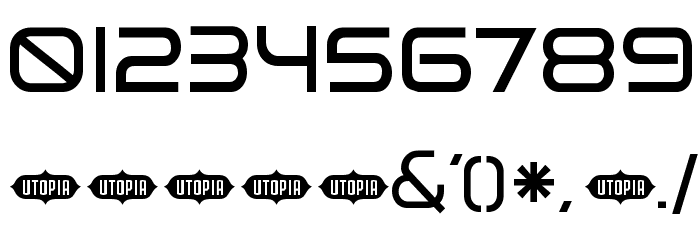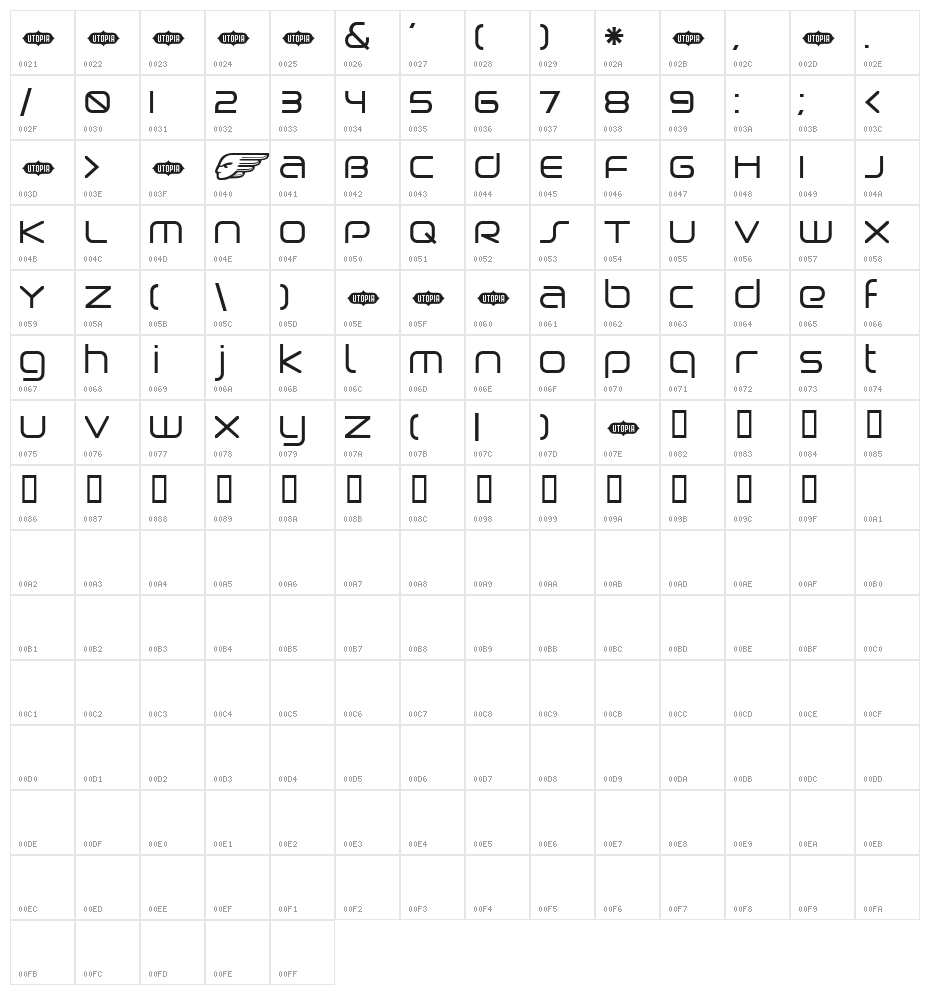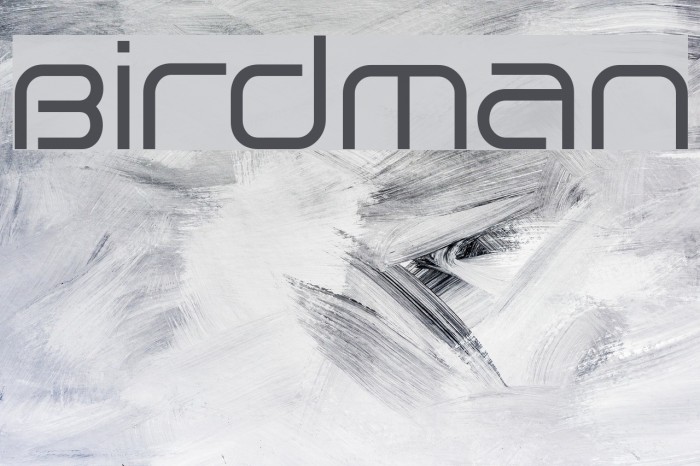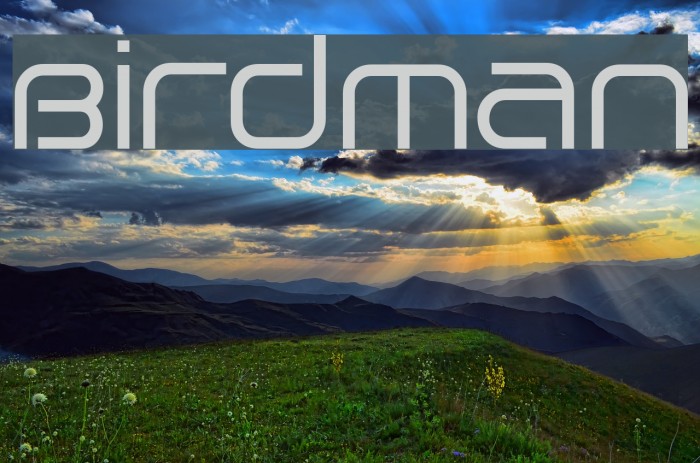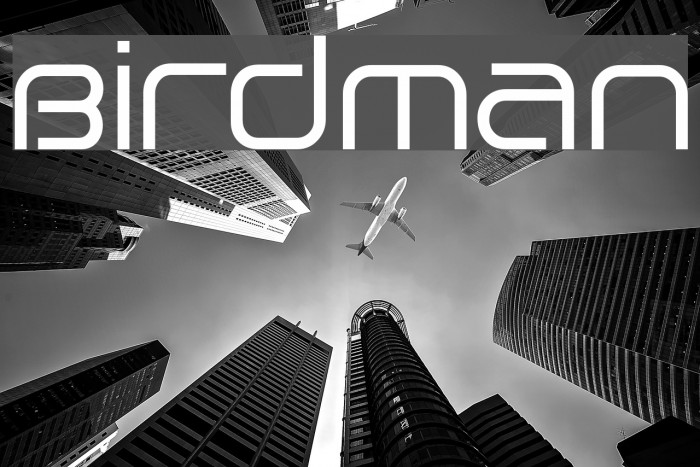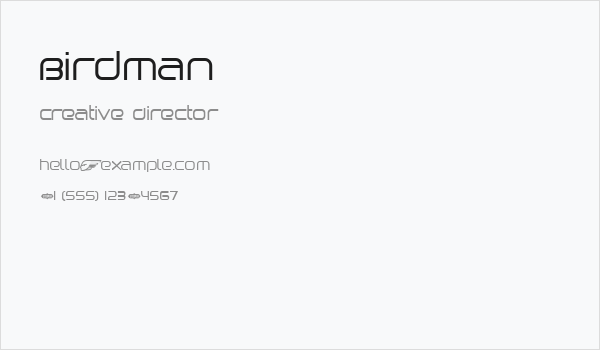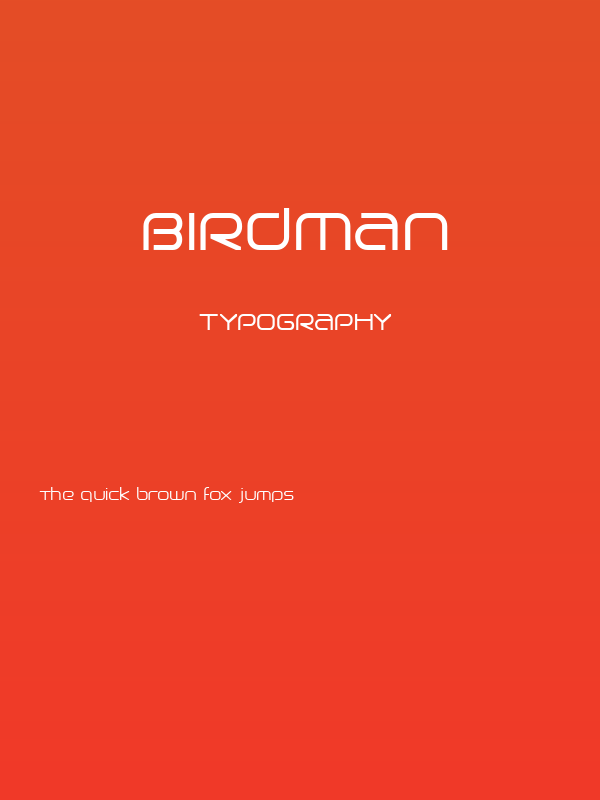
Birdman Font
Birdman Description
This font features a sleek, modern design with clean lines and a geometric structure. The characters are uniformly constructed, offering a futuristic and minimalistic aesthetic. The uppercase and lowercase letters maintain a consistent style, with rounded edges and a balanced proportion. The numerals are distinct and easily readable, complementing the overall design. Special characters are included, maintaining the same stylistic approach, ensuring versatility in various applications.
| Use Case | Headlines, Logos, Digital Interfaces |
| Proposed Projects | Ideal for technology branding, modern advertising, futuristic designs, and digital interfaces. |